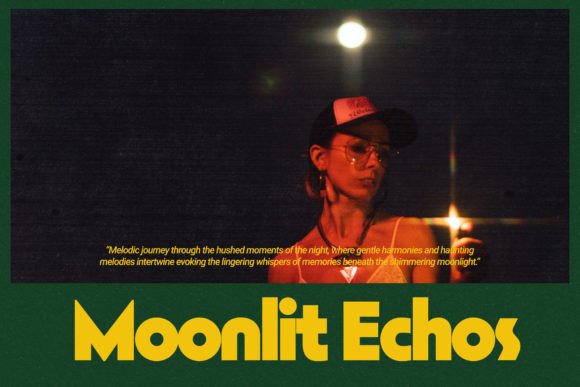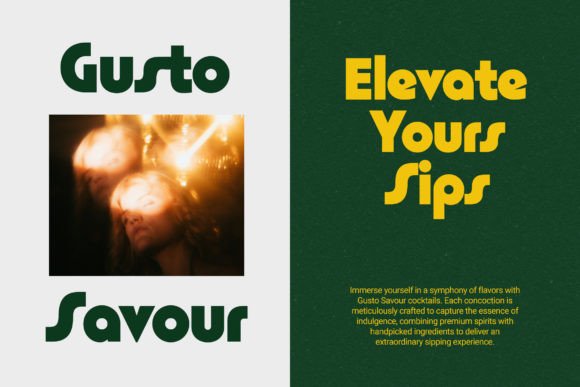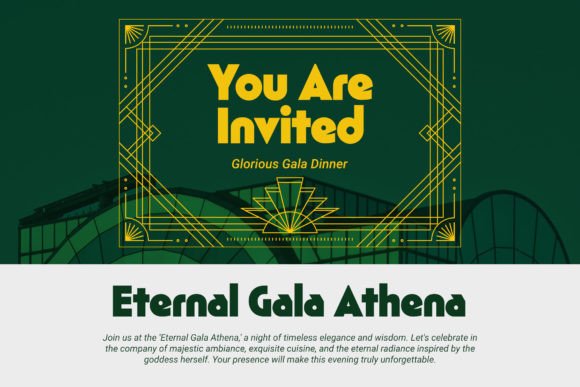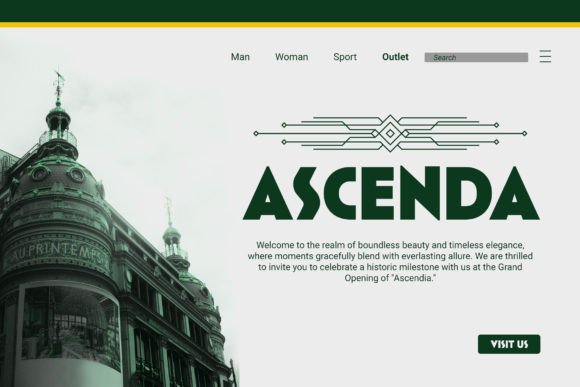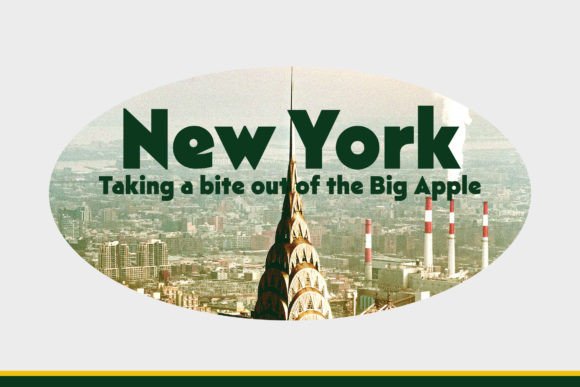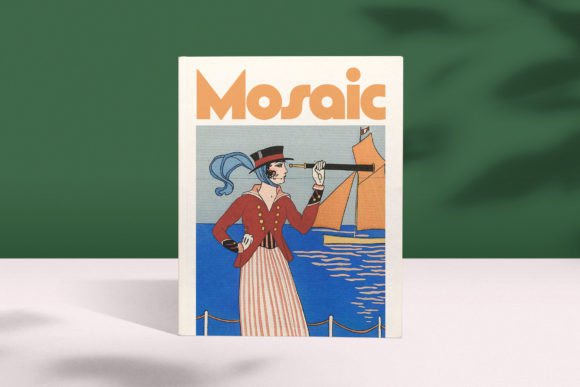
Gatesco Font: A Timeless Union of Art Deco and Modern Design
In the realm of typography, few fonts have managed to capture the essence of two distinct eras as seamlessly as Gatesco. This distinctive typeface boldly marries the opulent allure of Art Deco with the sleek, minimalistic aesthetic of modern design, creating a captivating visual experience that is both nostalgic and cutting-edge.
The Art Deco Legacy
Art Deco, a design style that emerged in the 1920s, is characterized by its luxurious feel, geometric shapes, and ornate details. It influenced various art forms, including architecture, fashion, and typography. Gatesco Font draws inspiration from this rich history, incorporating the bold lines, metallic materials, and ornate motifs that define Art Deco.
However, Gatesco doesn’t merely replicate the style; it evolves it. By integrating modern design principles, Gatesco breathes new life into the classic Art Deco aesthetic, making it relevant for contemporary design projects. This fusion results in a font that feels both vintage and fresh, capable of adding a touch of sophistication to any design.
Gatesco Font is notable for its striking design characteristics. Its letters are crafted with bold lines and geometric shapes, reminiscent of the Art Deco era’s architectural marvels and decorative arts. The font features clean, crisp lines that provide a modern twist, ensuring it doesn’t feel antiquated or overly ornate.
One of the standout features of Gatesco is its versatility. It comes in various weights, allowing designers to choose the perfect version for their project, whether it’s for a headline, body text, or a call-to-action button. This versatility, combined with its distinctive look, makes Gatesco an excellent choice for a wide range of design applications, from branding and advertising to web design and digital media.
Modern Aesthetic and Applications
While Gatesco pays homage to Art Deco, its modern aesthetic ensures it fits perfectly into today’s design landscape. The font’s sleek lines and minimalist approach to ornamentation make it highly legible on digital platforms, a crucial factor in an era where digital media dominates.
Designers and crafters will appreciate Gatesco’s adaptability. It can be used in various contexts, from luxury brand logos and high-end product packaging to website headers and social media graphics. The font’s unique blend of old-world charm and modern simplicity allows it to stand out in any medium, making it an invaluable tool for those looking to create memorable and impactful designs.
Why Choose Gatesco Font?
There are several reasons why Gatesco Font should be a top consideration for designers and crafters:
- Unique Aesthetic: Gatesco offers a distinctive look that combines the elegance of Art Deco with the simplicity of modern design, making it a standout choice.
- Versatility: Available in multiple weights, Gatesco can be used across a variety of design projects, ensuring consistency and impact.
- Legibility: Its clean lines and modern approach ensure that Gatesco remains highly legible, even at smaller sizes or on digital screens.
- Timeless Appeal: Gatesco’s blend of historical and contemporary design elements gives it a timeless quality, making it suitable for projects that require a classic yet modern feel.
Gatesco Font represents a bold step forward in typography, merging the best of Art Deco’s opulence with the sleekness of modern design. Its distinctive appearance, versatility, and legibility make it an exceptional choice for designers and crafters looking to add a touch of elegance and sophistication to their work. Whether you’re creating a luxury brand identity, designing a website, or crafting engaging digital content, Gatesco Font offers the perfect blend of nostalgia and innovation.
By incorporating Gatesco into your design toolkit, you’ll be equipped to create visually stunning projects that stand out in a crowded digital landscape. Experience the unique fusion of past and present with Gatesco Font, and discover new possibilities for your designs.